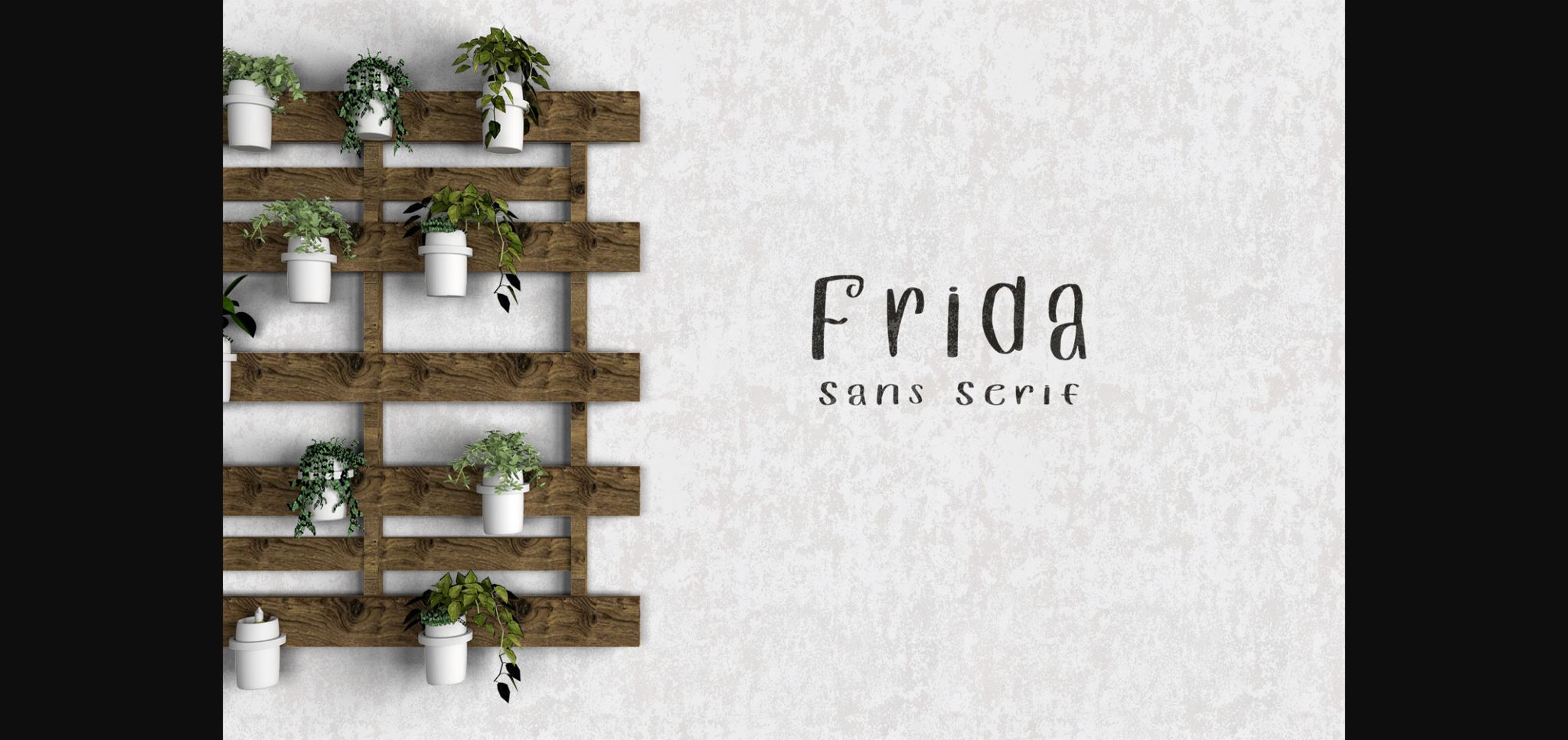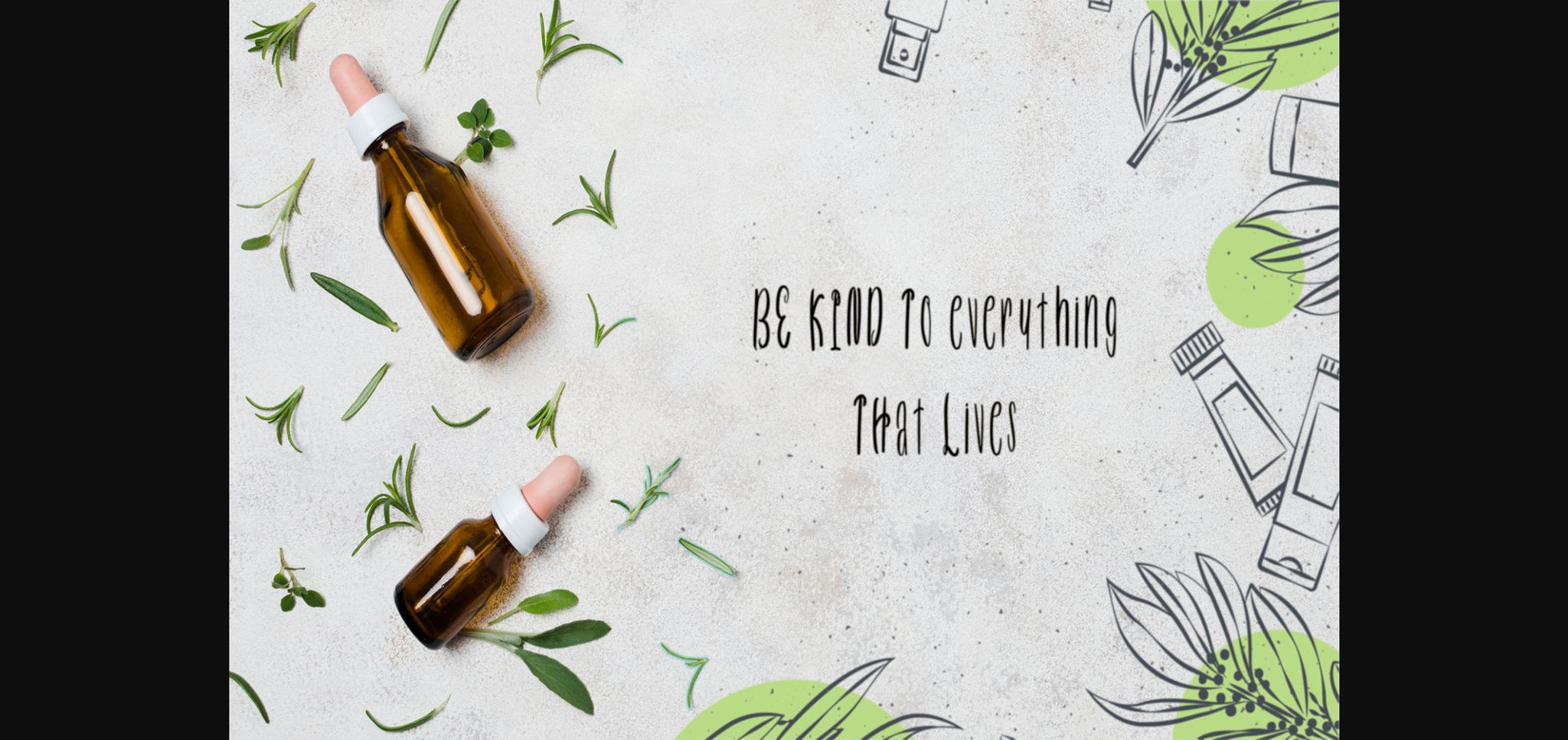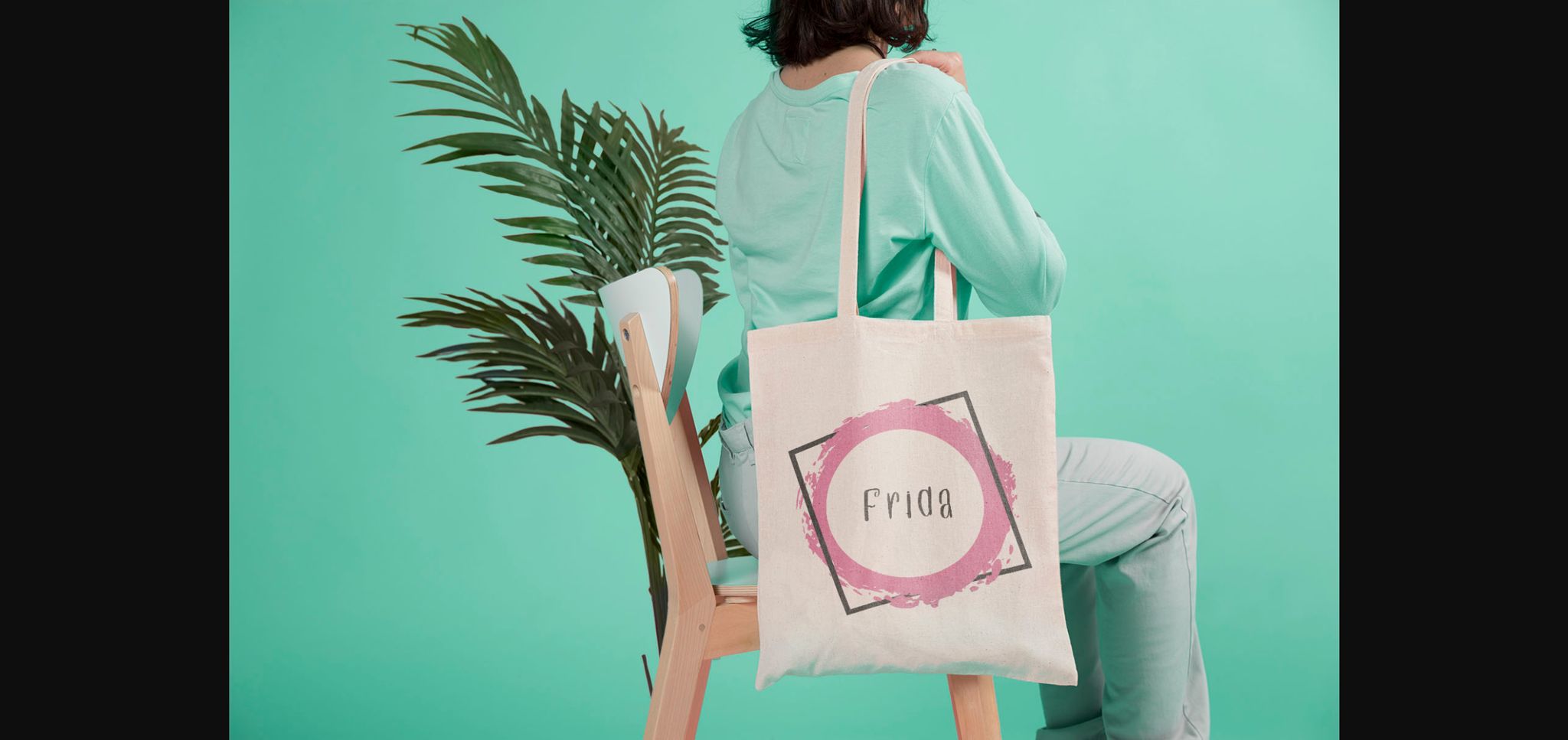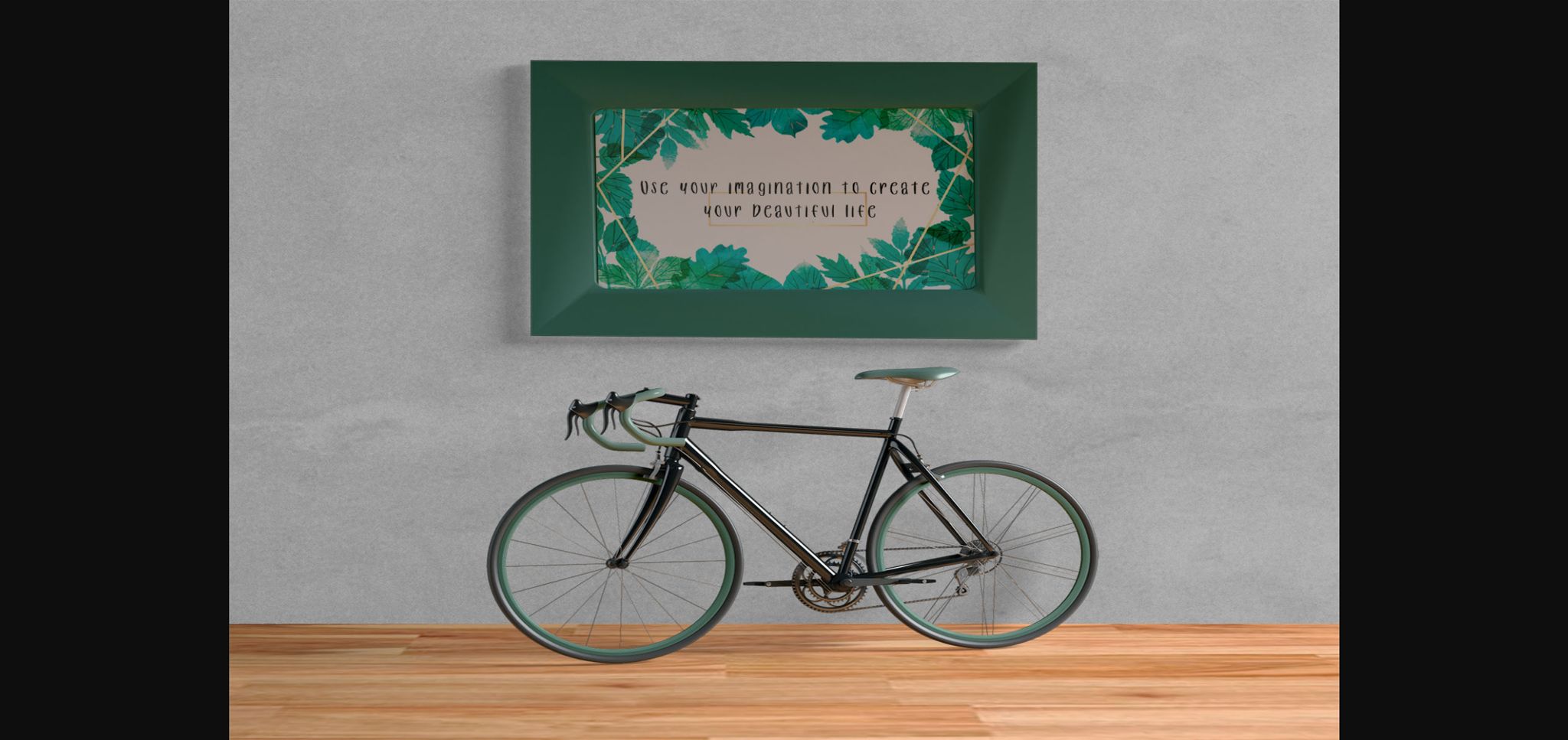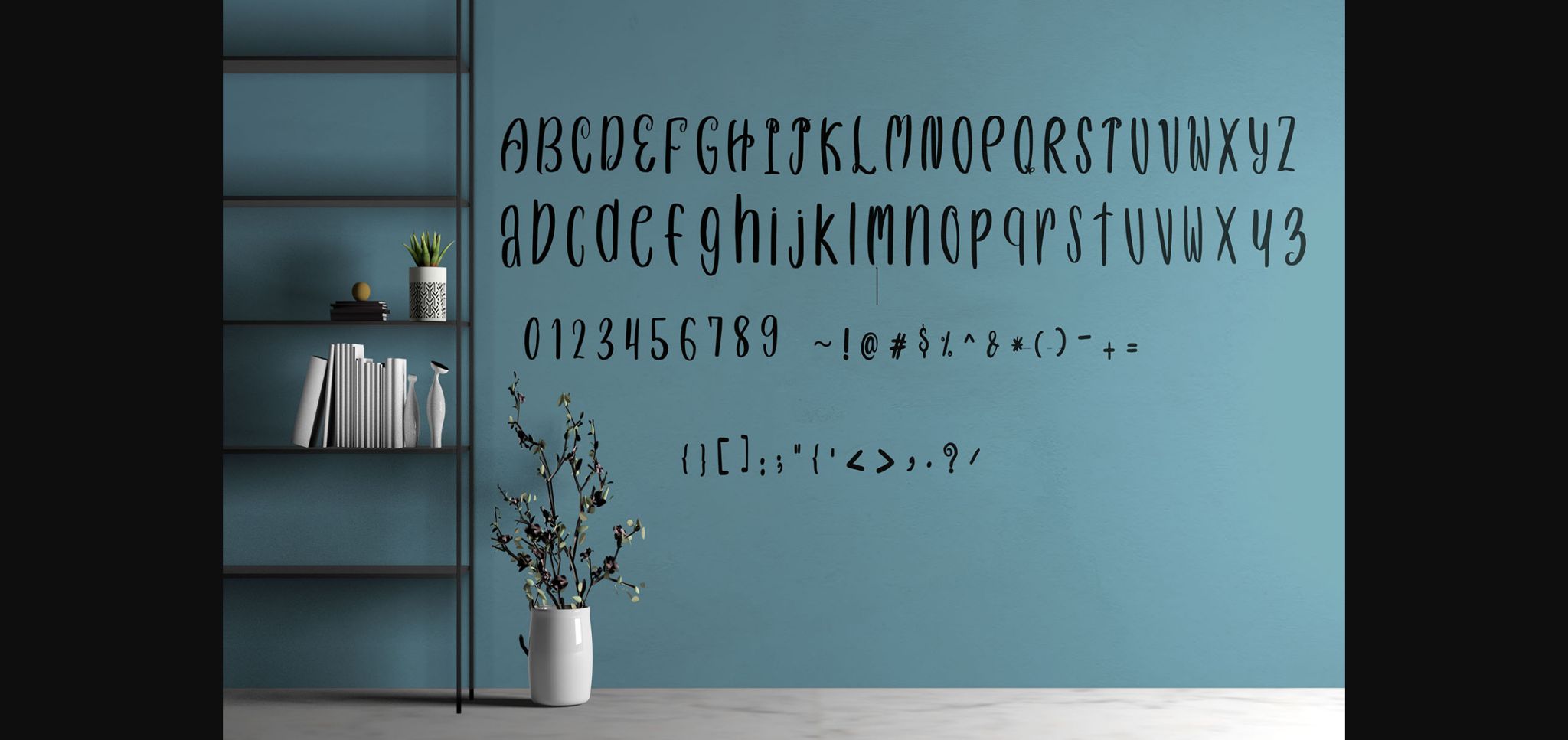
HomeSans Serif FontsFrida Font Sans Serif Fonts Frida Font FacebookXPinterestWhatsApp 1 of 7 ... Frida Font Poster 2... Frida Font Poster 3... Frida Font Poster 4... Frida Font Poster 5... Frida Font Poster 6... Frida Font Poster 7... About Frida Font Frida is a cute and neat sans serif font. It can easily be matched to an incredibly large set of projects, so add it to your creative ideas and notice how it makes them stand out! DOWNLOAD NOW People also explored Ying Easter Sunday Sunshine Font Ramus Sans Font Red Rose Font Salya Font Oliviar Font Rama Slab Font Rocklie Font 364 0 TagsFridaFrida Font Previous articleAleante FontNext articleEkela Font LEAVE A REPLY Cancel reply Comment: Please enter your comment! Name:* Please enter your name here Email:* You have entered an incorrect email address! Please enter your email address here Website: Save my name, email, and website in this browser for the next time I comment. Personal Use Free Rina Personal Use Free Read more about this font Girl Personal Use Free Read more about this font Shawaki Personal Use Free Read more about this font Font Slice Personal Use Free Read more about this font BLOG Using Fonts in Digital Marketing: Tips to Strengthen Your Brand Identity In the realm of digital marketing, every visual element plays a crucial role in shaping a brand's identity, and fonts are no exception. The... Top 7 Google Fonts Alternatives for Faster and Privacy-Friendly Web Design (2025) The 10 Best Handwriting Fonts to Add Personality to Your Designs To increase your work productivity, choose the most readable fonts.